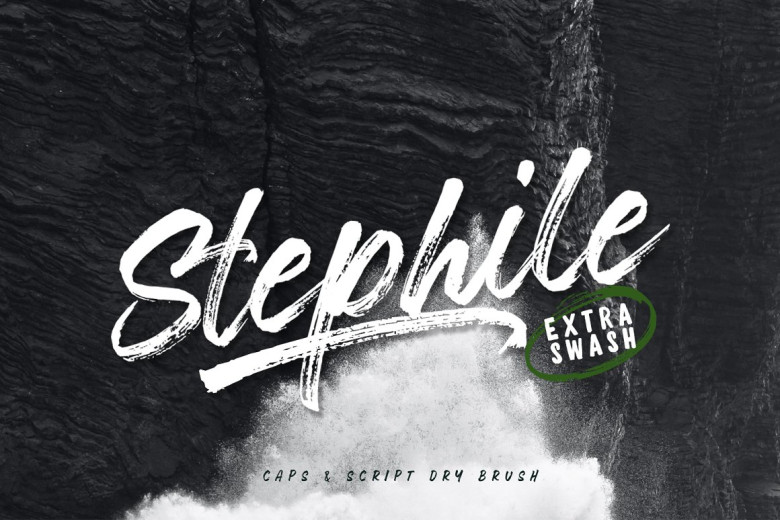
Stephile Font
Stephile is an informal hand-brushed script typeface. So, it has a somewhat nice texture and produces a smooth flow as well. Stephile offers many alternates to give your writing a handwritten look; there are four sets of lower cases being issued and two sets of upper cases. It is suitable for any design project: logo, branding, poster, quotes, beautiful wedding invitations, exquisite stationary art, lovely social media posts, and delicate greeting cards, among other things. It is unique, approachable and stylish.
Stephile Brush Script Font